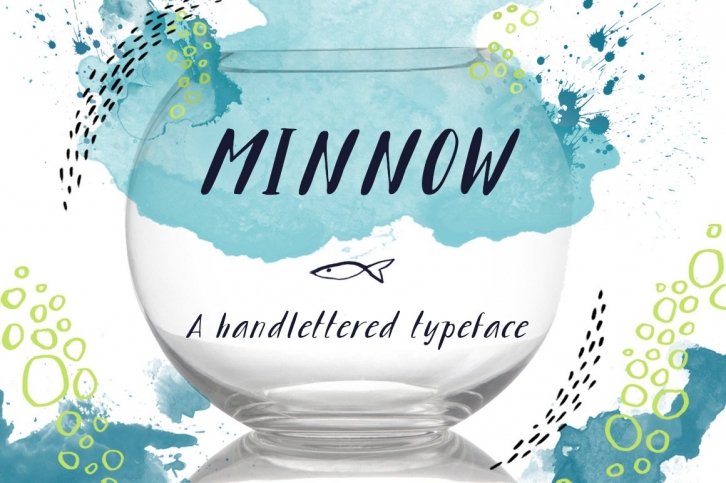
Minnow is a sweet and simple typeface with natural lines that have a pen and ink handlettered feel. The variation between thick and thin lines, plus the mix of serif and sans-serif elements makes this a playful and unpredictable typeface that can be used boldly on it's own or paired beautifully with traditional serifs, scripts or modern and simple sans-serifs.
Minnow can be used in many different applications - logos, invitations, editorial work and inspirational quotes. If you plan on using this typeface on products that will be used for resale, please be sure to purchase an EXTENDED LICENSE.